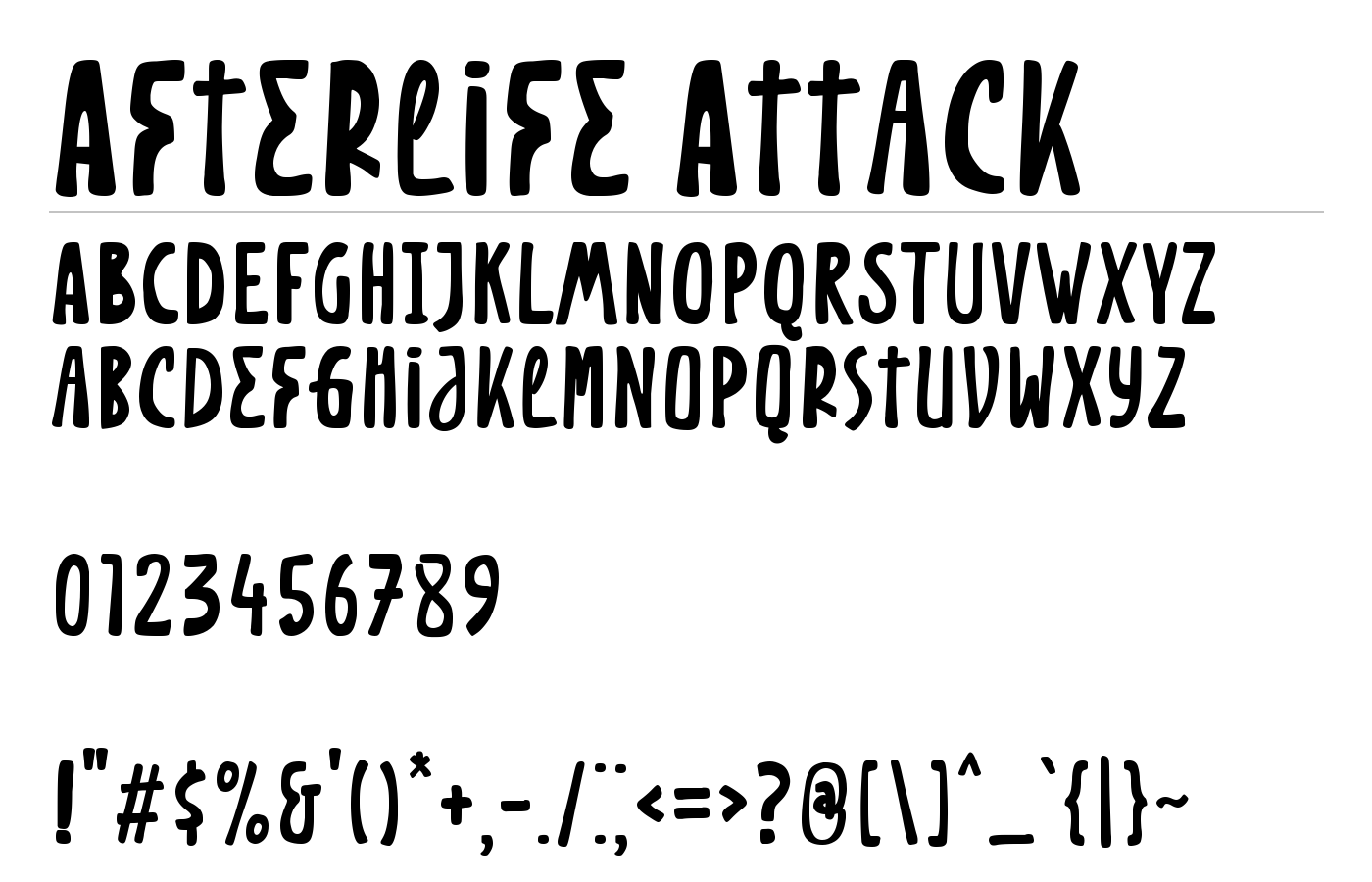
Afterlife Attack is a quirky, condensed sans serif font with playful, uneven letterforms that give it a hand-drawn, informal feel. Its tall x-height, moderate stroke contrast, and slightly irregular shapes make it perfect for lively headlines, posters, and creative branding that aim to capture attention with a fun, energetic vibe. This font works well for projects needing a youthful, approachable style with a bit of personality.
Afterlife Attack Font
About Afterlife Attack Font
| Font family | Afterlife Attack Font |
| Designer | Masa Aska Sanurumi |